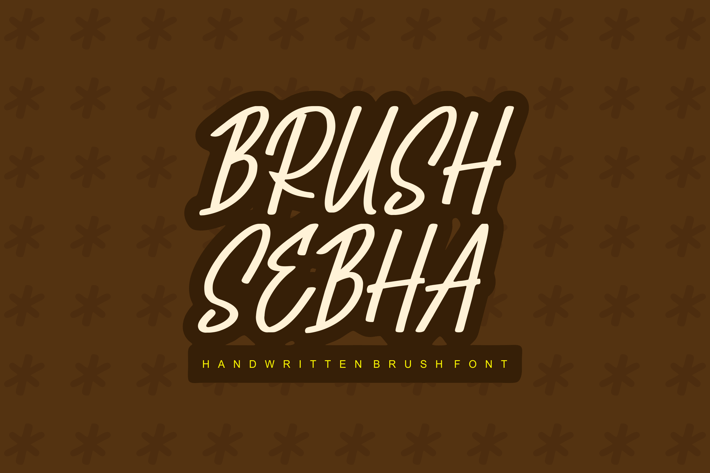
Brush Sebha - Handwritten Brush Font
Introducing our new product Brush Sebha Font - Handwritten Brush Font
Brush Sebha Font- Modern Font is a bold and authentic display font. The font is suitable for any branding project like logo,
t-shirt printing, esport, and many more. outstanding in a wide range of contexts.